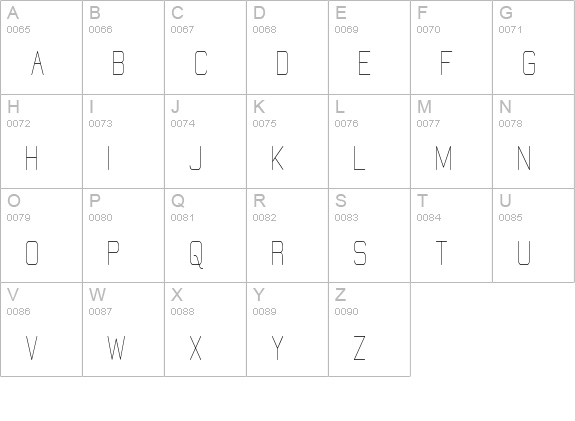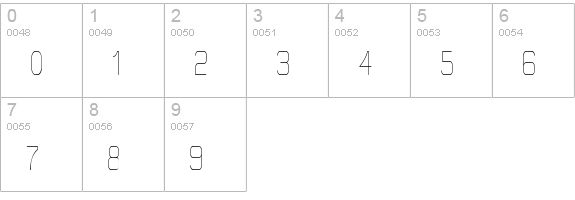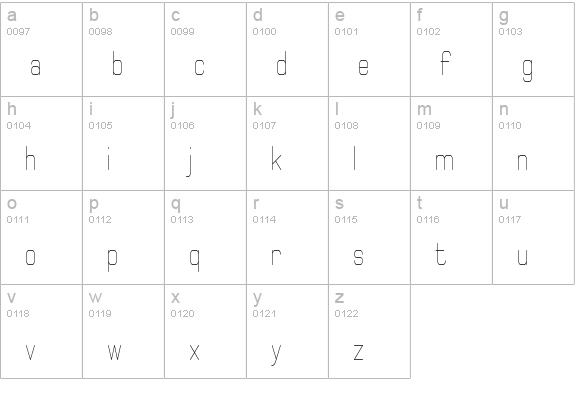
Elgethy Condensed is a distinctive, condensed-width variant in the Elgethy typeface family \xE2\x80\x94 well suited to design and typography projects.
Elgethy Condensed font is a sleek and modern typeface that exudes sophistication and elegance. With its condensed letterforms and clean lines, this font is perfect for adding a touch of refinement to any design project. The tall and narrow characters of Elgethy Condensed make it ideal for headlines, logos, and branding materials. What sets Elgethy Condensed font apart is that it is not only stylish and versatile but also free for personal and commercial use. You can download this font for free at FontsMarket.com, where you can explore a wide range of high-quality fonts for all your design needs. Don't miss out on the opportunity to elevate your projects with the timeless appeal of Elgethy Condensed font.